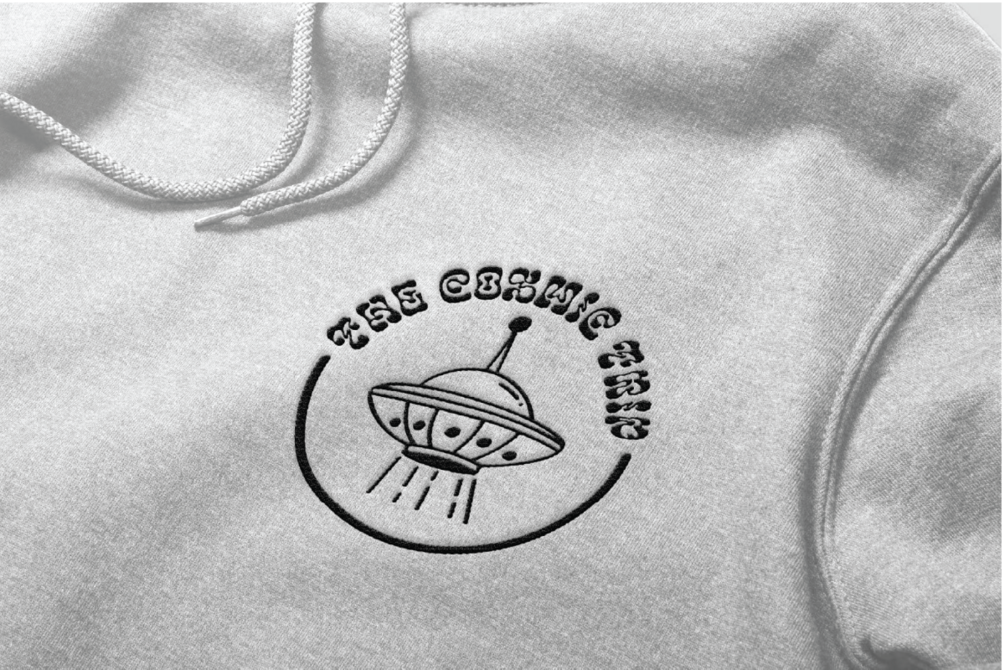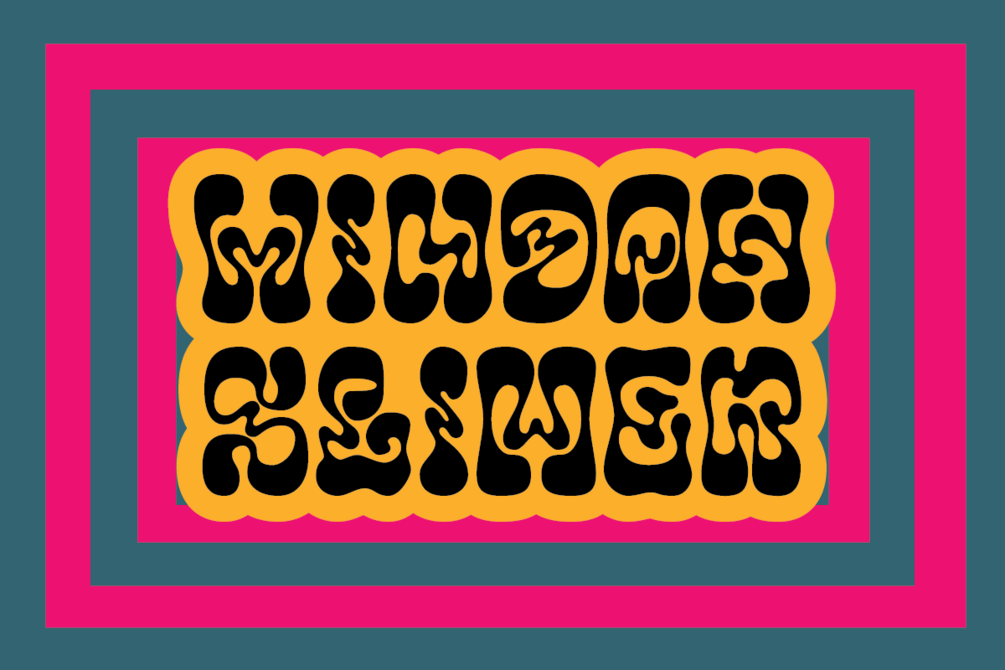
Windah Slimer
Windah Slimer Modern font. This font would be perfect for photography, watermarks, social media posts, advertisements, logos & branding, invitations, product design, labels, stationery, product packaging, special events, and other projects.